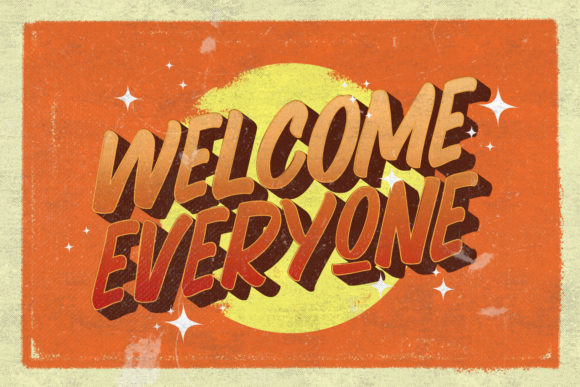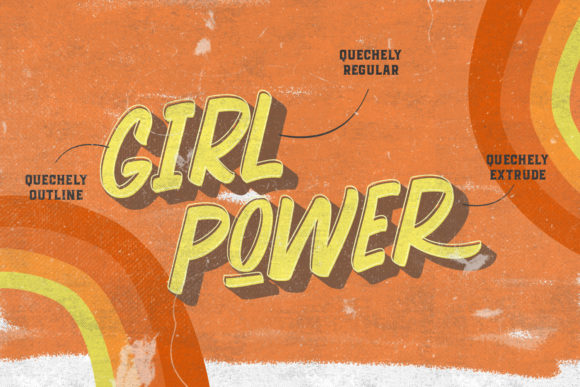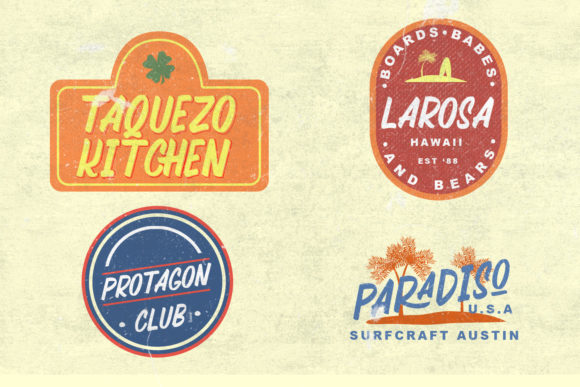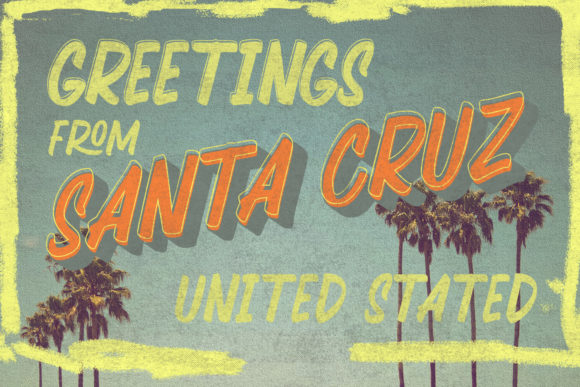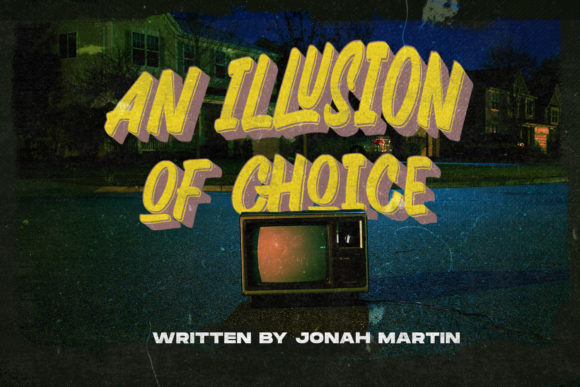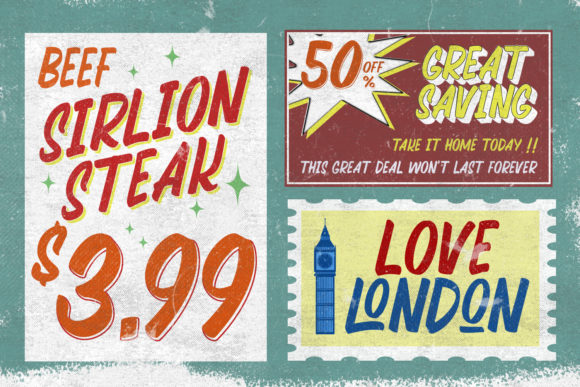
Introduction to Quechely Font Font
Fonts play a crucial role in design, and the Quechely Font font is a typeface that brings both character and versatility to any project. Whether you’re working on a branding project, a website, or a print design, the Quechely Font font offers a unique style that can elevate your work.
| 📌 Font Name | Quechely Font |
| 👤 Author | TempCraft |
Quechely feels playfully nostalgic and delivers an incredible vintage aesthetic.
Use this handwritten font to add that special retro touch to any design idea you can think of .
Key Features of Quechely Font Font
Why Choose Quechely Font Font?
The Quechely Font font is more than just a typeface – it’s a design tool that helps you communicate your message with style and clarity. Its unique character set and versatile design make it suitable for a wide range of applications, from elegant invitations to bold headlines.
With its carefully crafted letterforms and balanced proportions, the Quechely Font font ensures readability and visual appeal across all mediums.
What makes Quechely Font font special?
The Quechely Font font stands out with its unique design, exceptional readability, and versatility across various design applications.